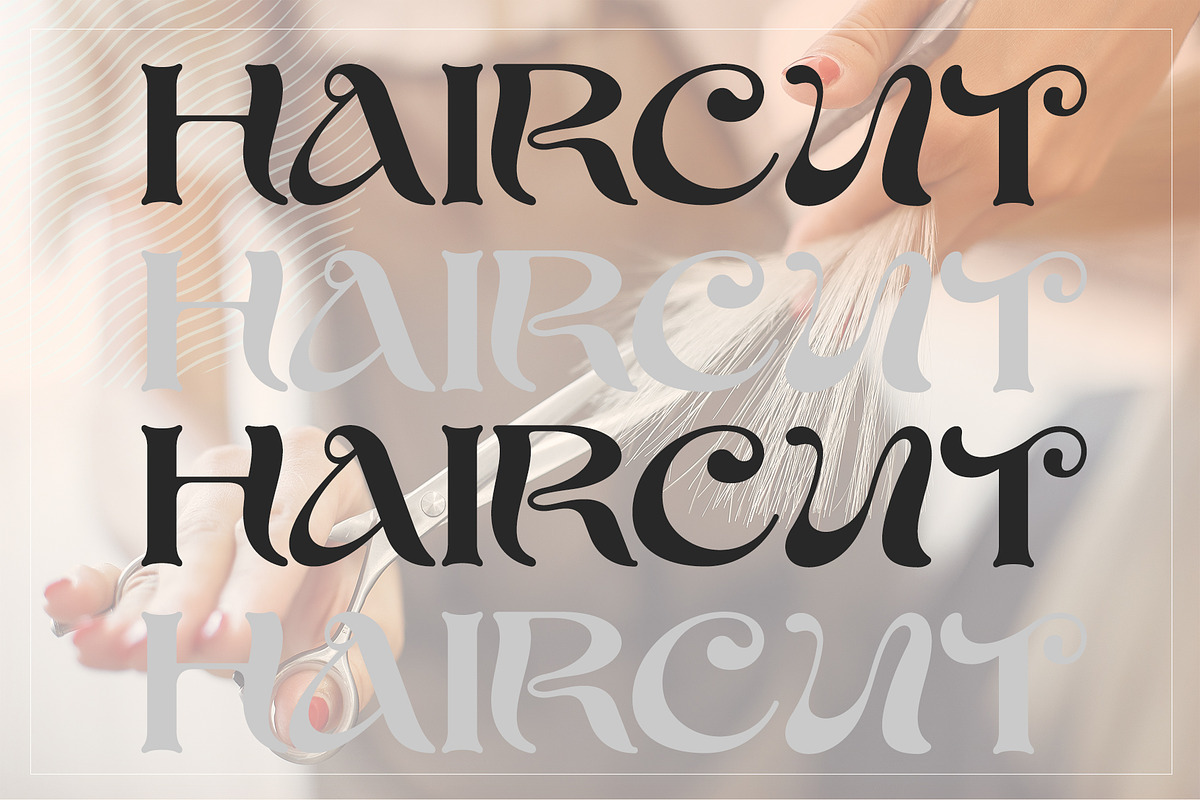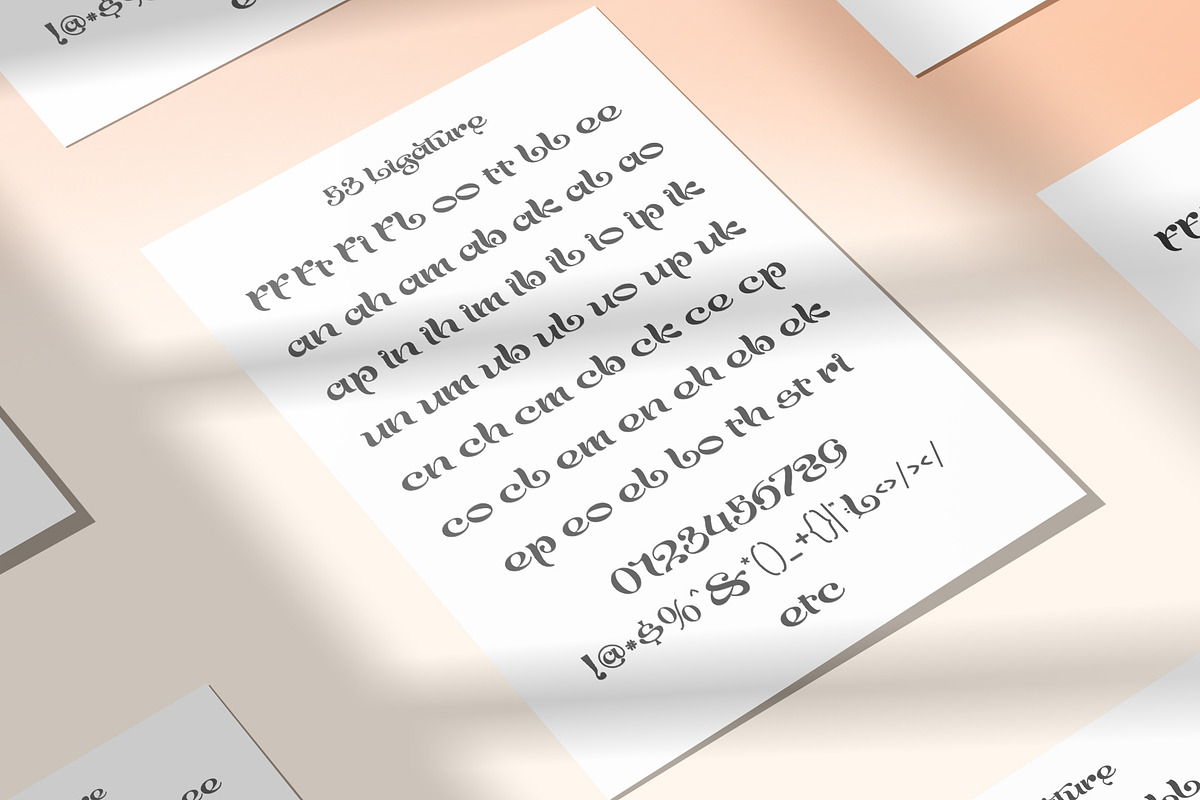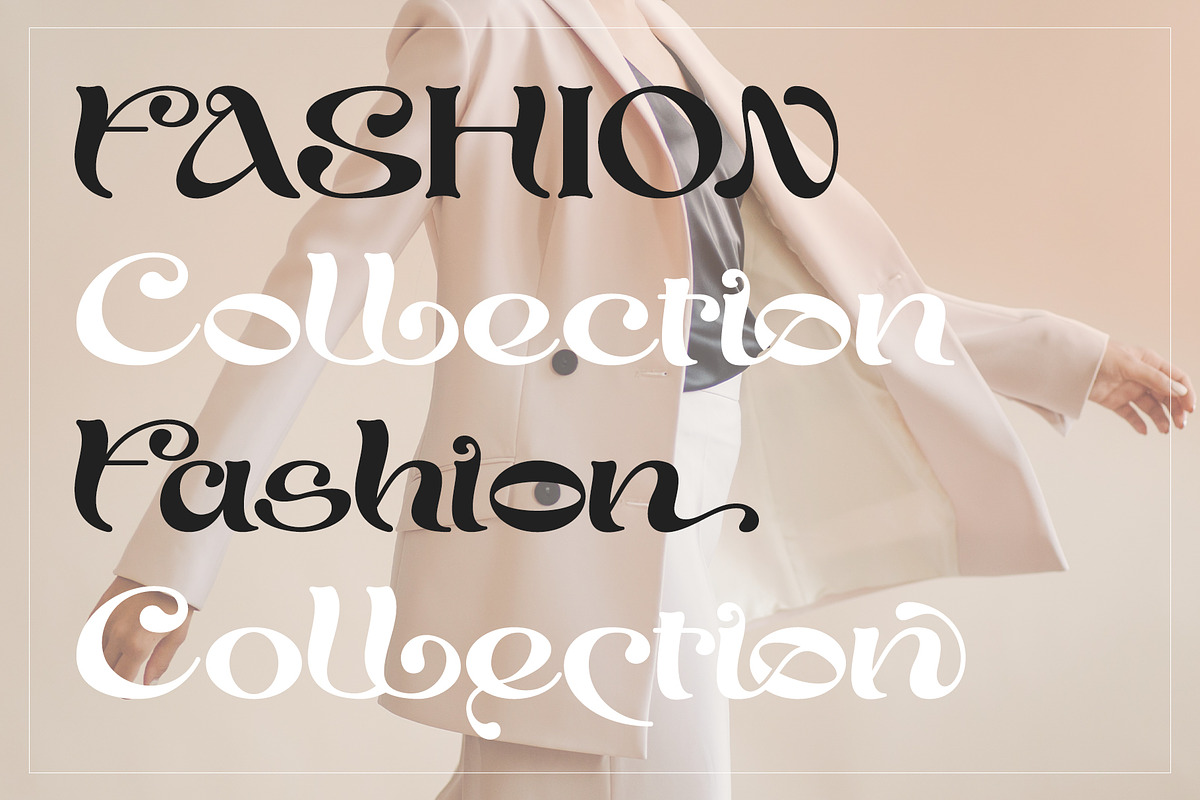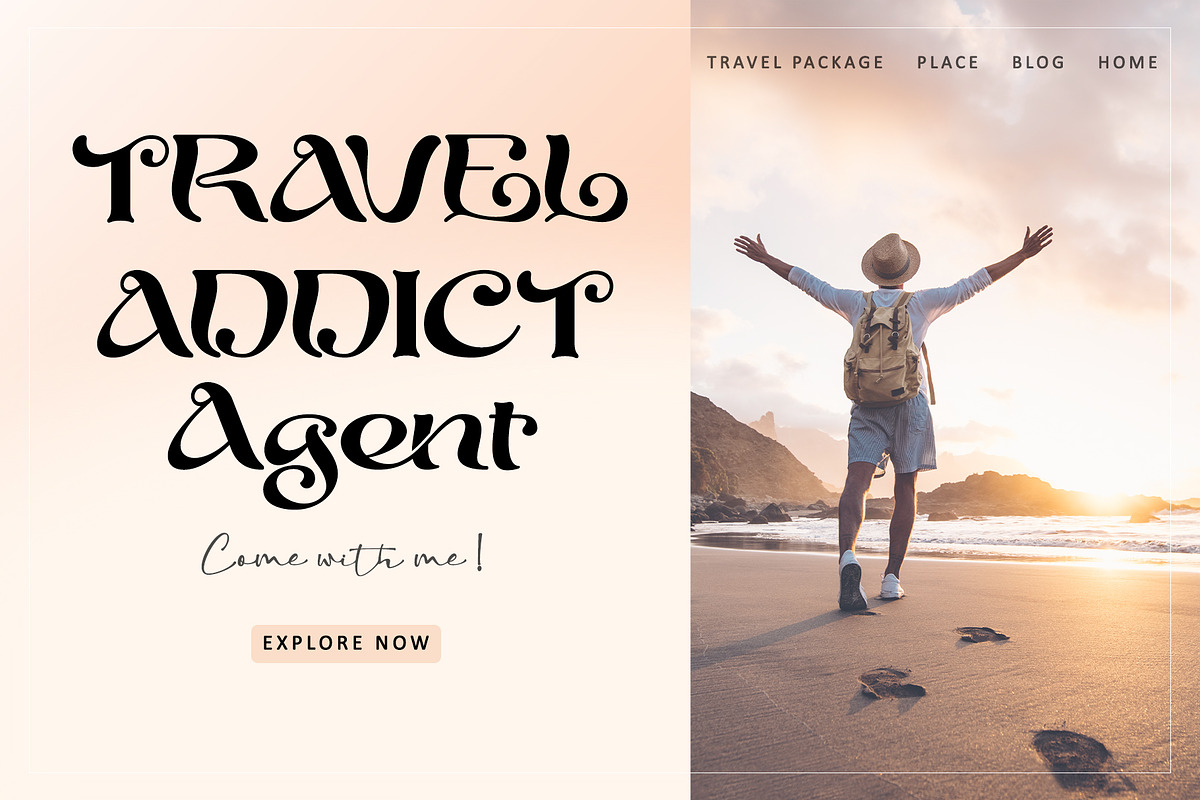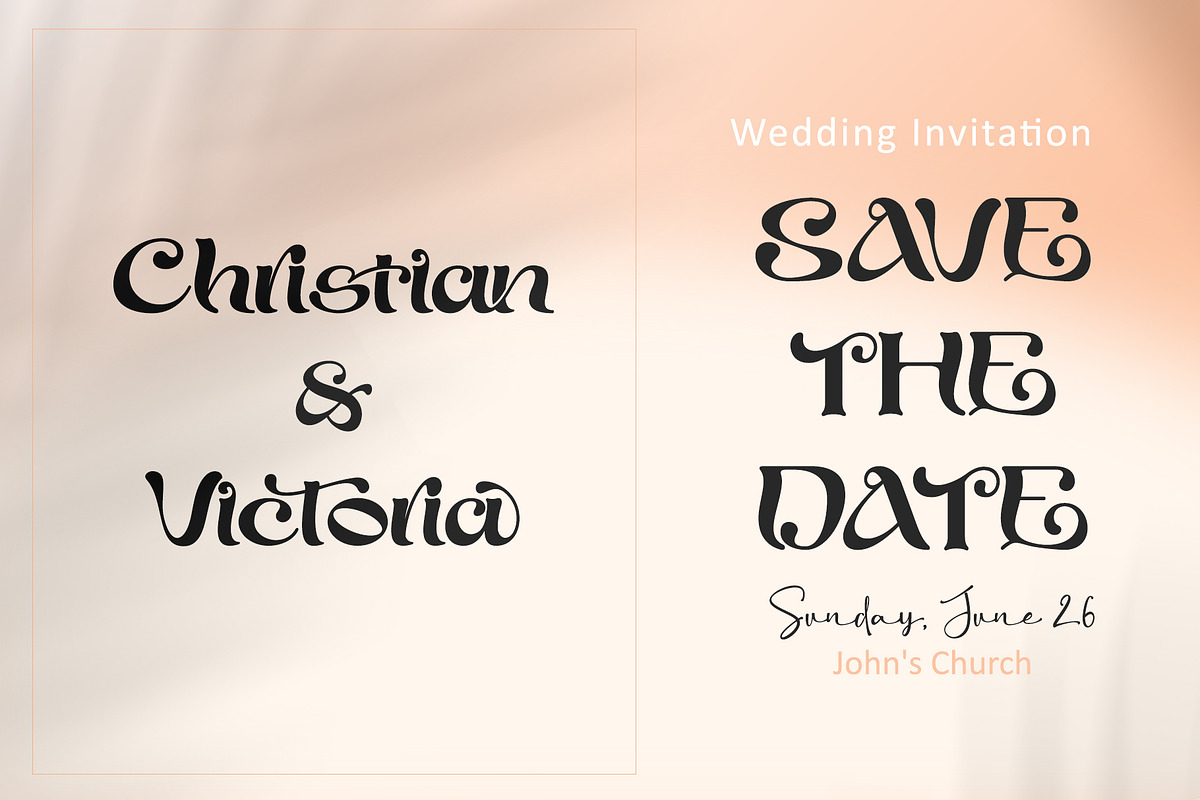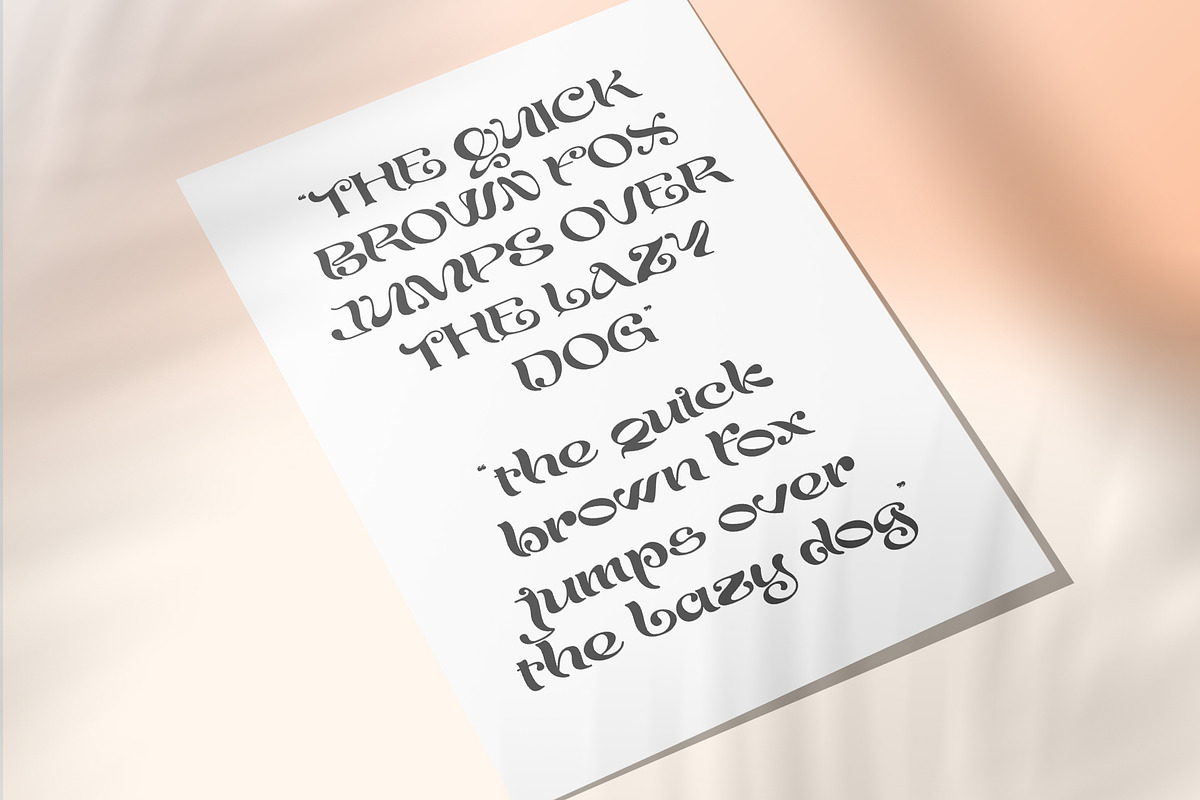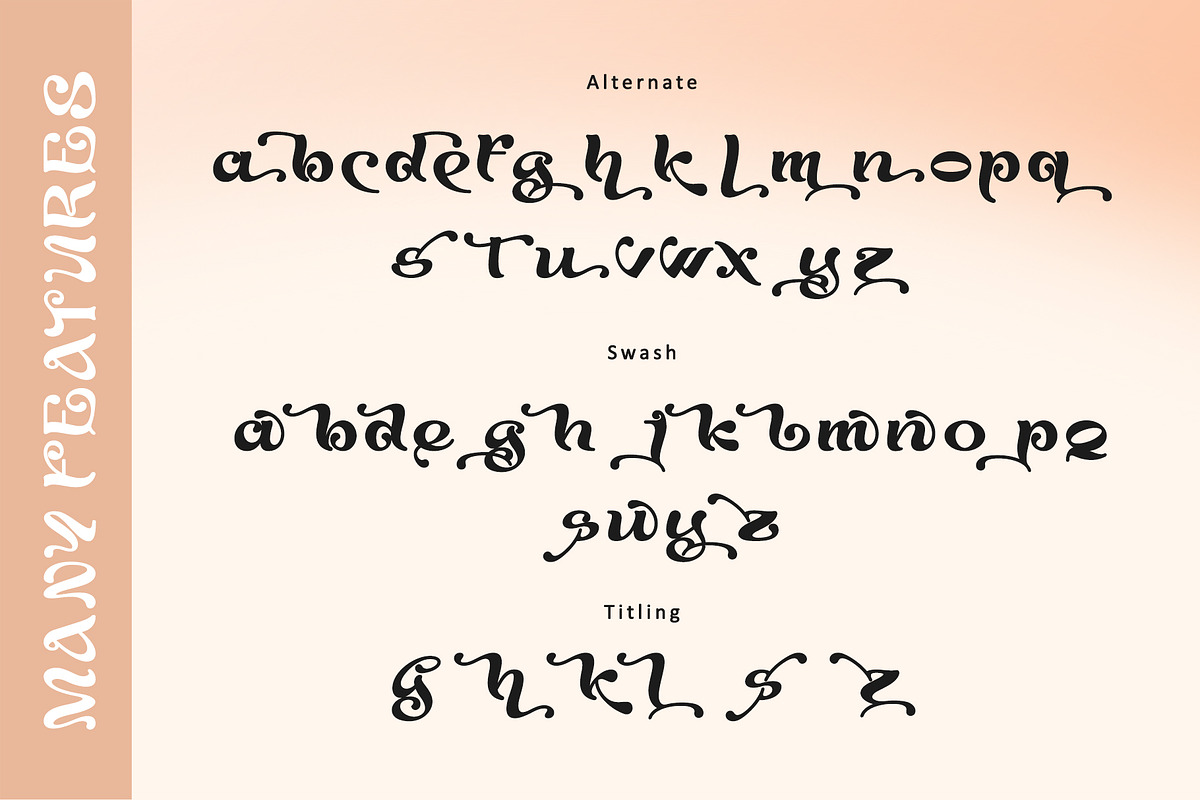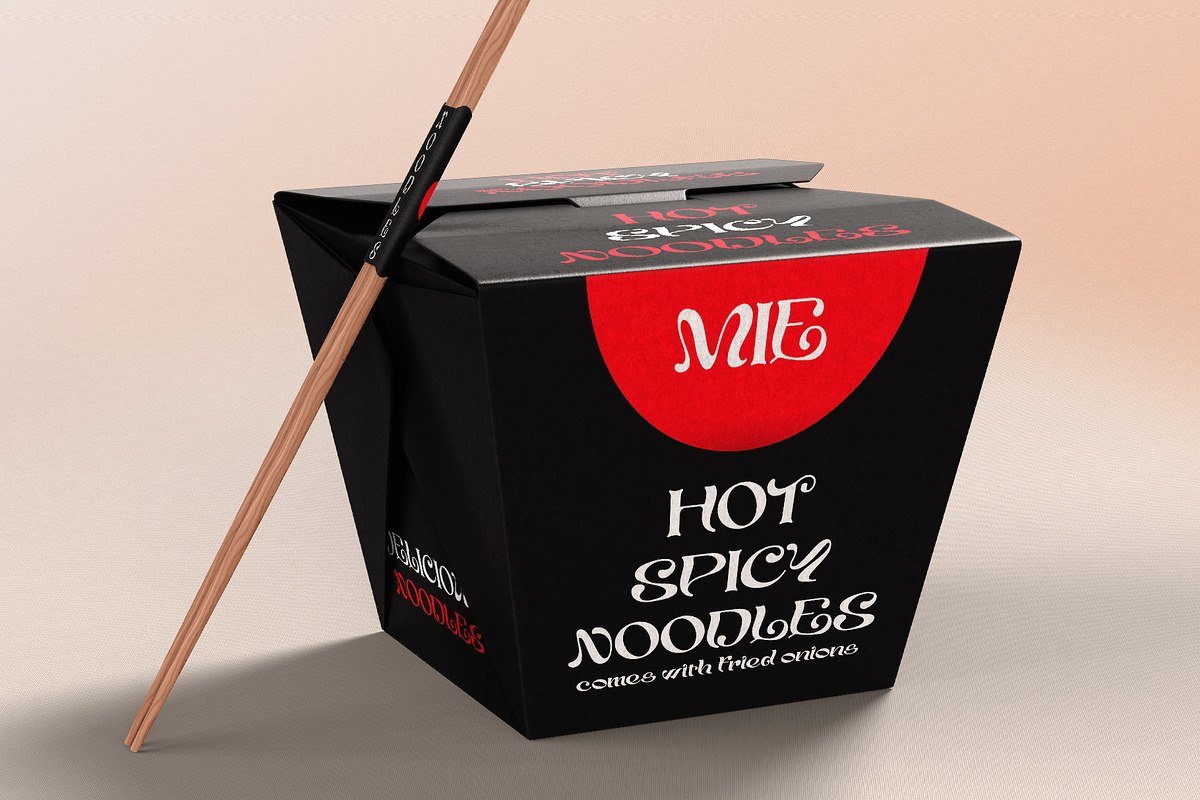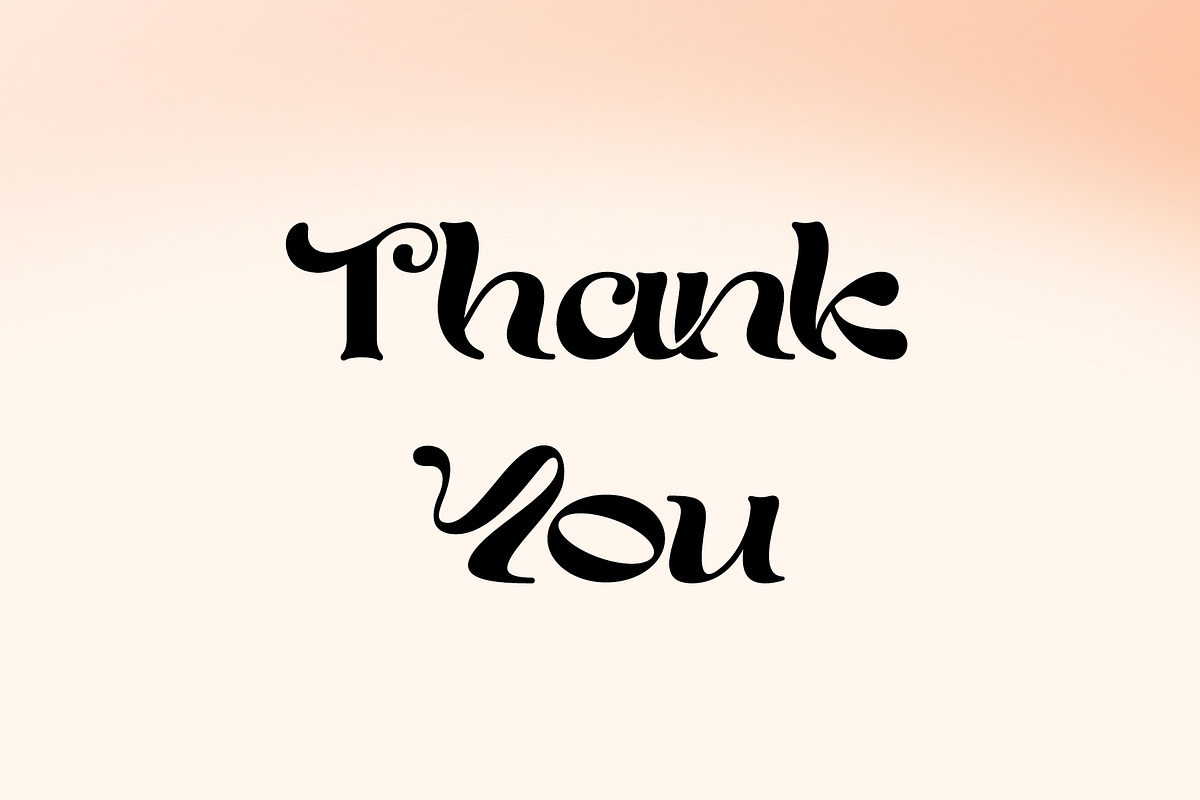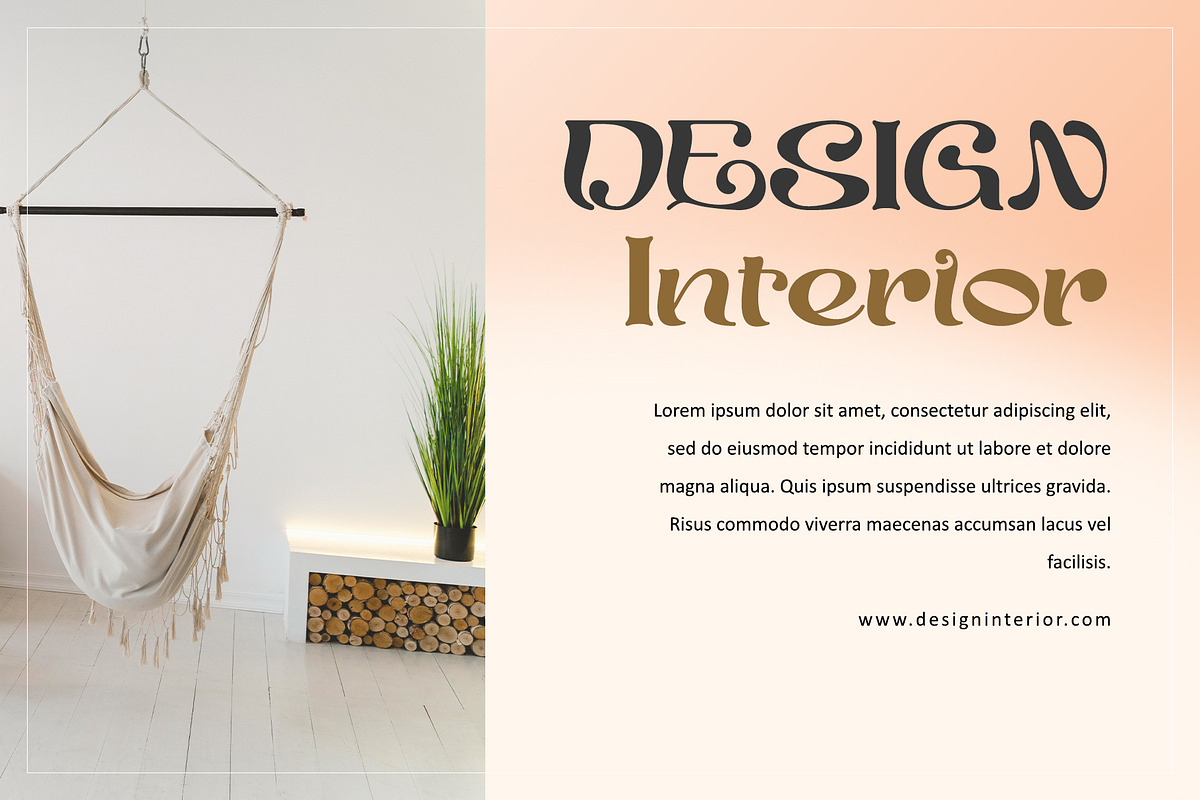
Agaste
Agaste is a stylish and elegant serif font. It is suitable for a wide variety of designs due to its unique and cool style. Comes with some alternates and ligatures, so you can combine them to make a perfect typography design. It is ideal for your upcoming projects. Such as luxury logo and branding, classy editorial design, magazines, Packaging, poster, movie, cosmetic brand, fashion promotions, weddings, fashion, art gallery branding, and more. This font is PUA encoded, meaning you can access all of the glyphs.
Many Features:
- Support multilingual; ä ö ü Ä Ö Ü ß ¿ ¡
- lowercase and uppercase letters
- Alternate, Swash, Titling, & Ligature.